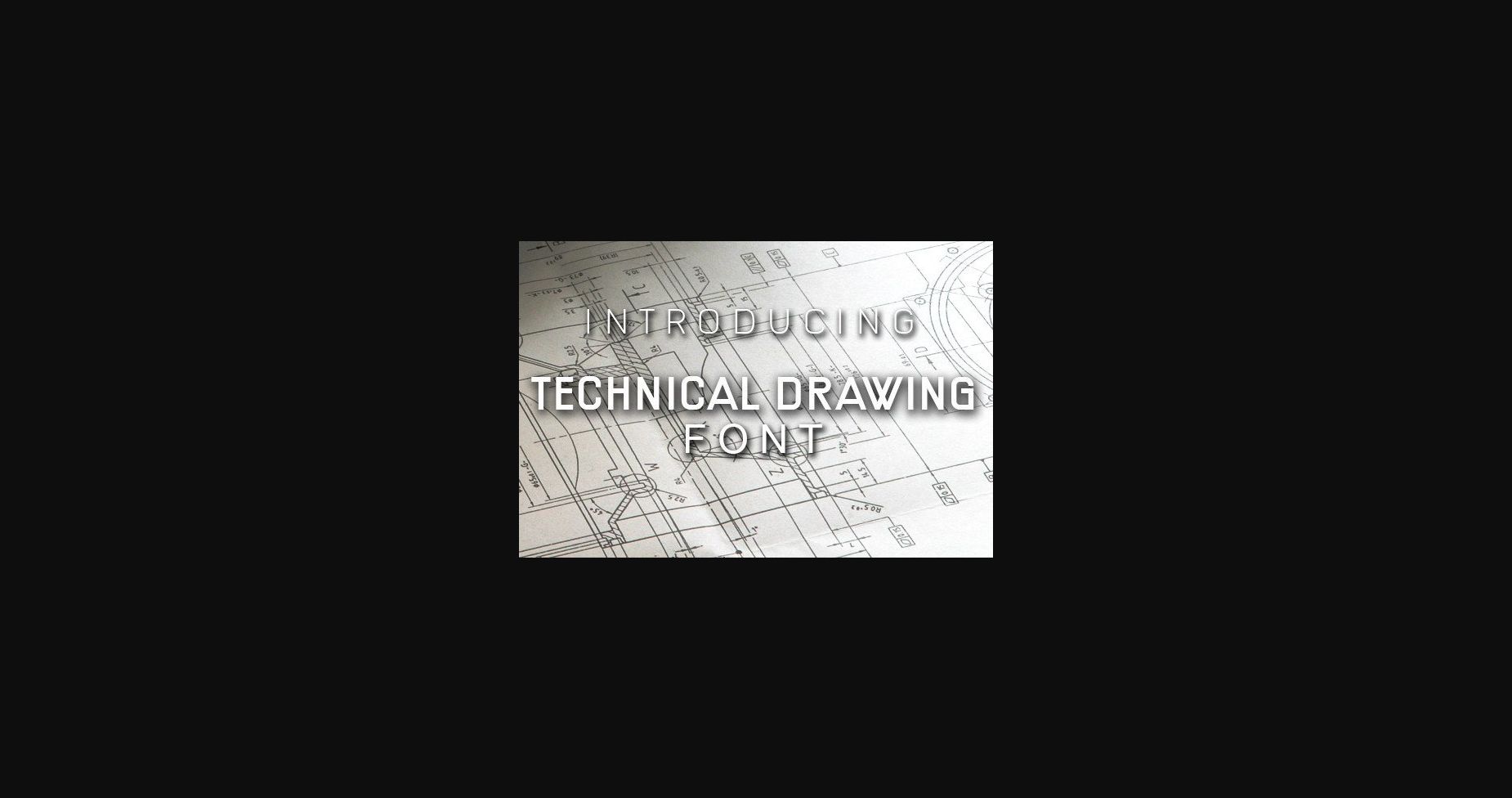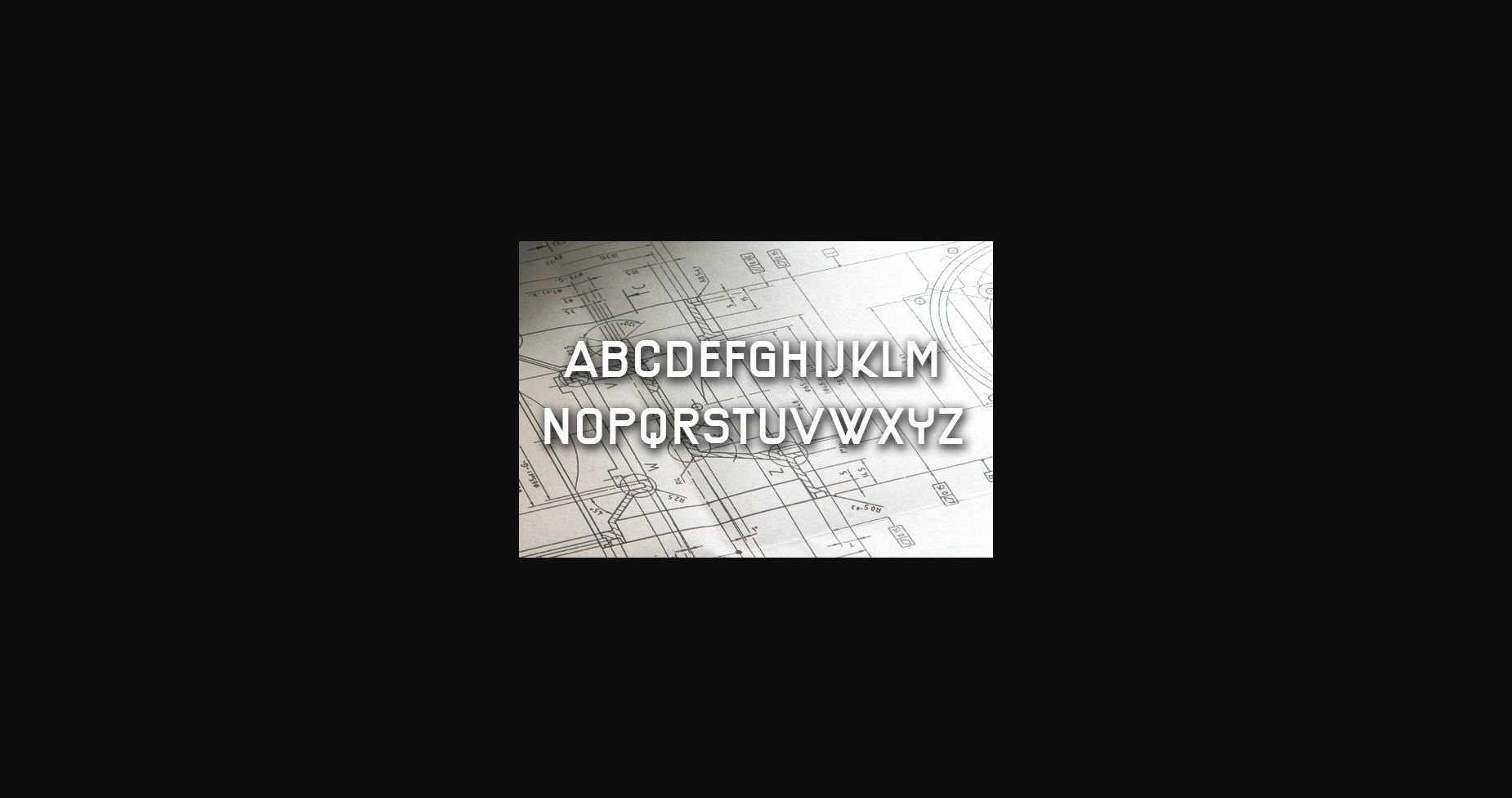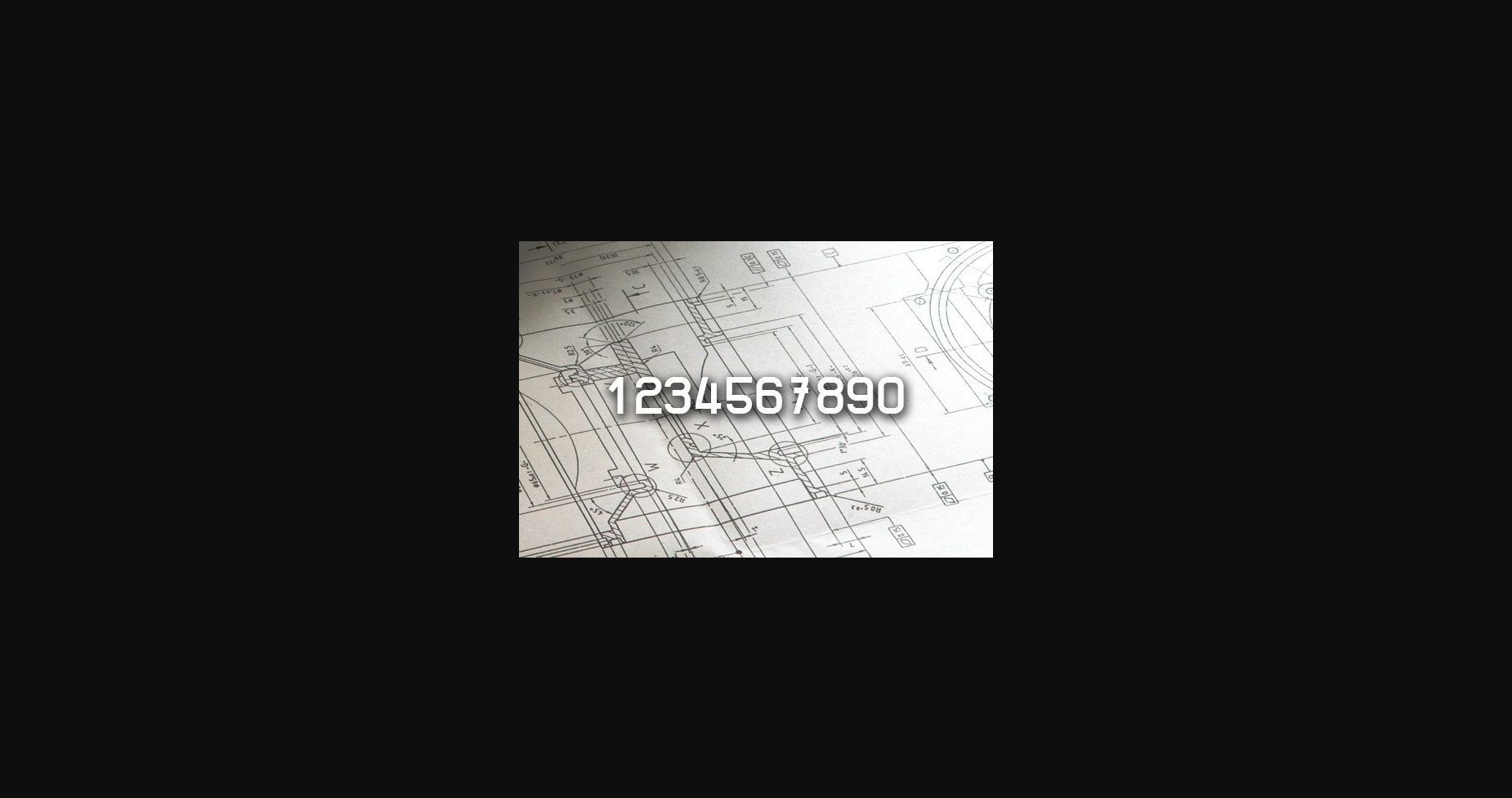
Technical Drawing Font
About Technical Drawing Font
Technical Drawing is a superb sans serif font with a cool and clean look. This font will look stunning on any poster, flyer, or t-shirt. Add it confidently to your projects and you will be impressed by the outcome generated.